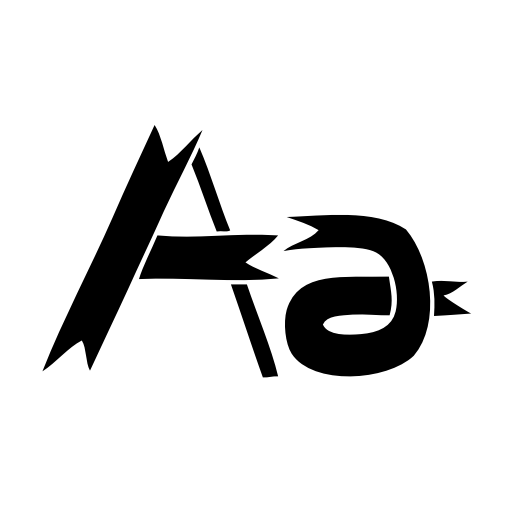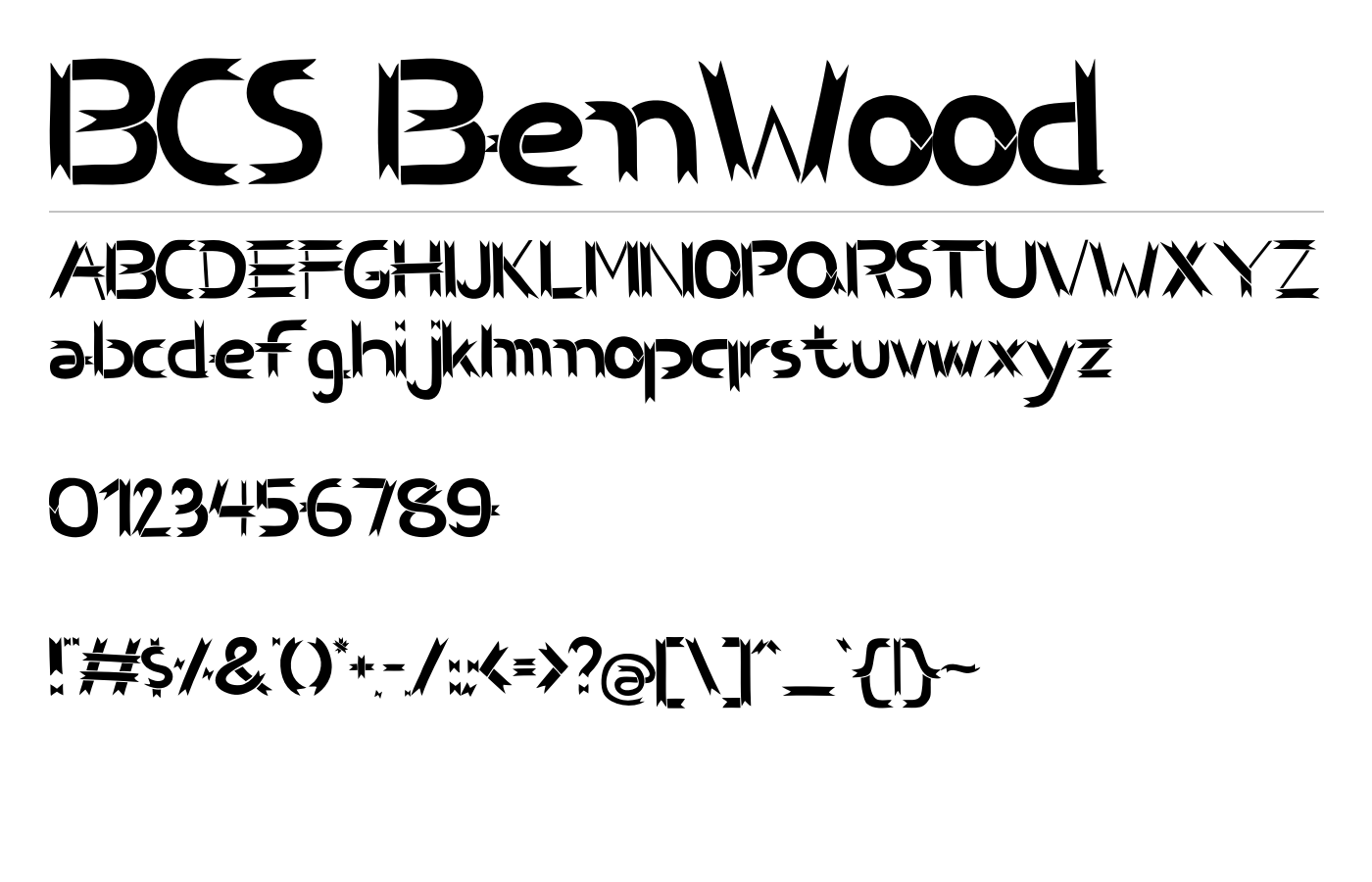
BCS BenWood is a bold, decorative sans serif font characterized by sharp, jagged edges and dynamic, irregular cuts that give it a striking, edgy appearance. Its strong contrast and unique letter shapes make it ideal for eye-catching headlines, posters, and creative branding where a bold, adventurous, and unconventional style is desired. This font works best in designs that want to convey energy and a modern, daring personality.
BCS BenWood Font
About BCS BenWood Font
| Font family | BCS BenWood Font |
| Designer | Ben Chalit Sagiamsak |